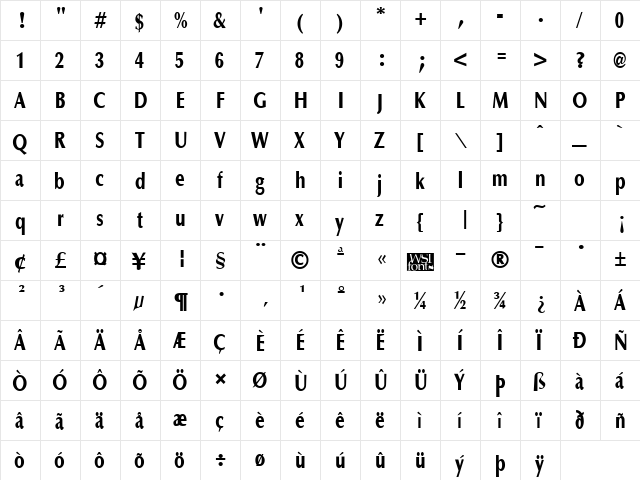
OptaneCompactExtrabold Regular Font Preview
Design Context for OptaneCompactExtrabold Typeface
OptaneCompactExtrabold takes a measured approach to typography — its balanced proportions and neutral character make it a reliable workhorse for both digital and print work. The heavy weight commands attention and anchors typographic hierarchies. The condensed width makes it efficient for tight spaces without sacrificing legibility.